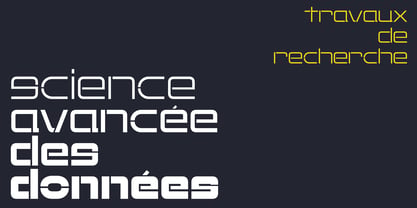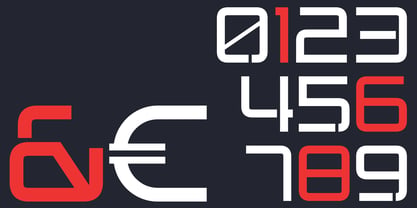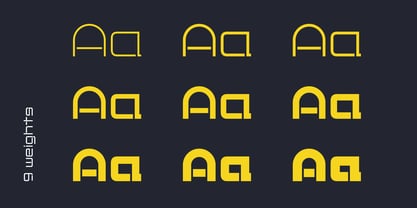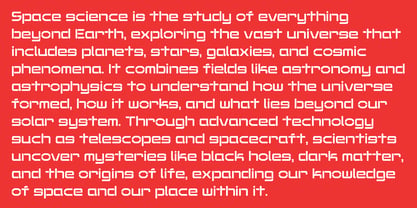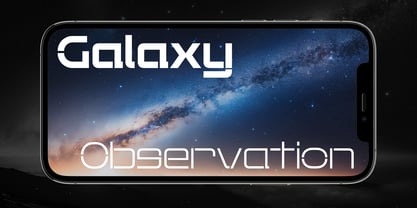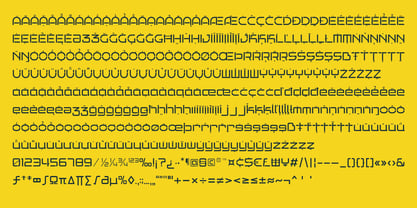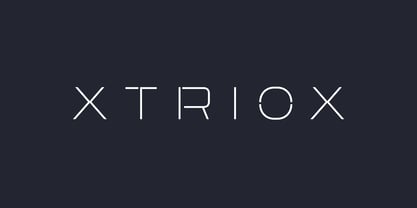
Xtriox
von Outerend
Die Schriftfamilie Xtriox wurde von Taka Ikari entworfen und von Outerend veröffentlicht. Xtriox enthält 9 Stile und Familienpaketoptionen. Mehr über diese Familie
Xtriox is a futuristic geometric display typeface designed for bold, forward-looking visuals. Featuring nine versatile weights, it offers flexibility across a wide range of applications while maintaining a sharp, tech-driven aesthetic. Ideal for headlines, titles, logos, and science-inspired design, Xtriox brings precision, clarity, and a modern edge to any composition.
Designer: Taka Ikari
Foundry: Outerend